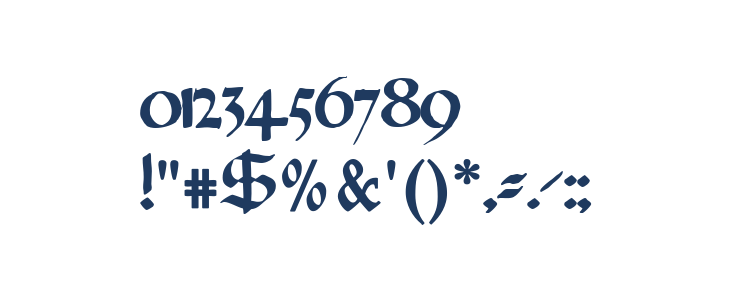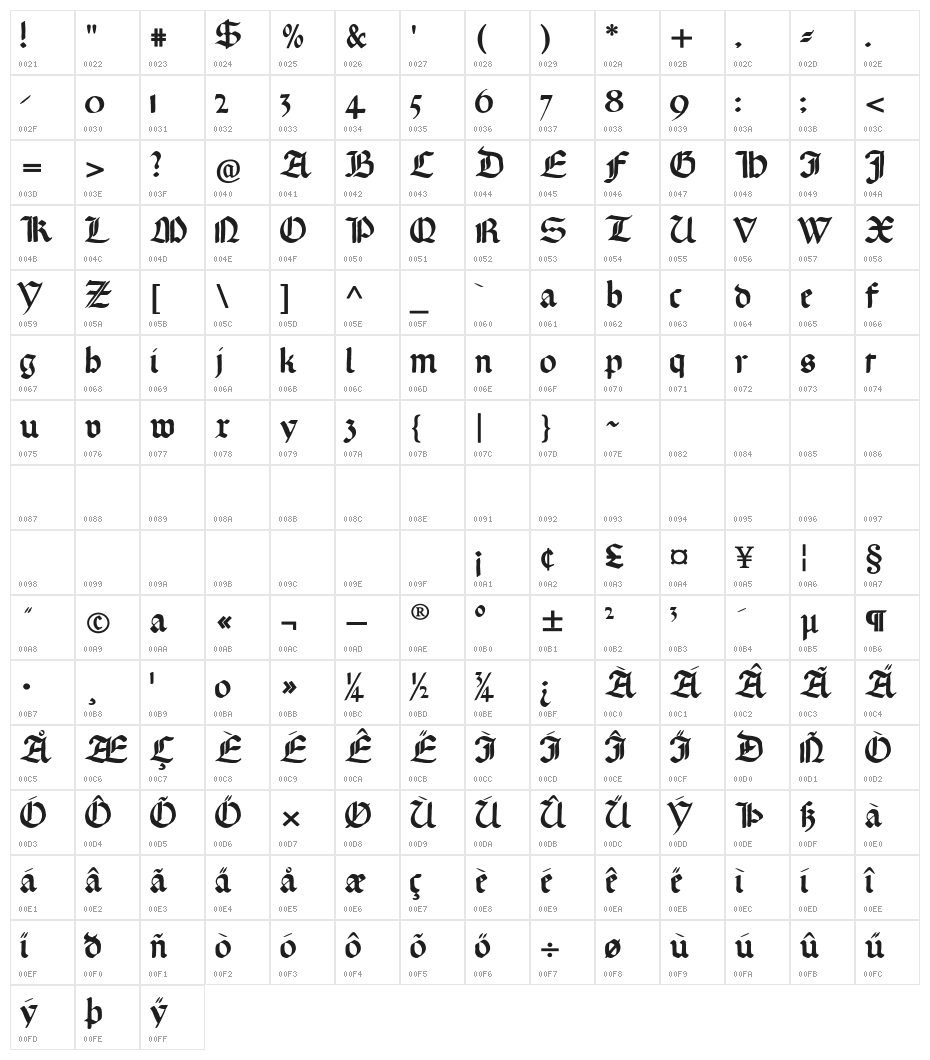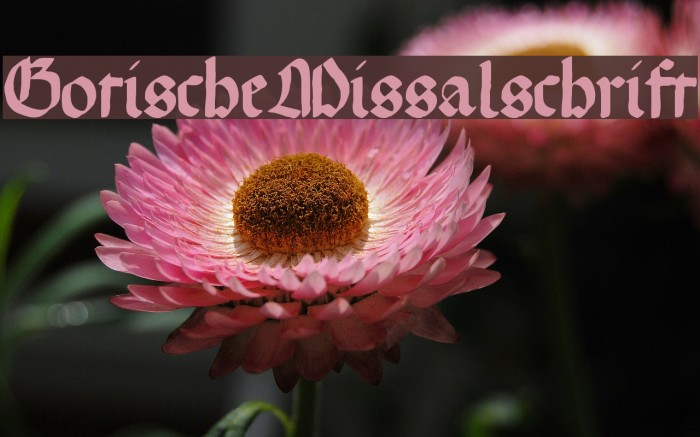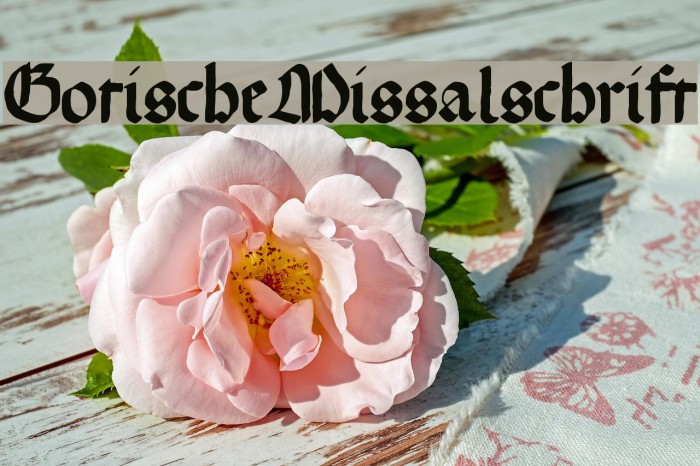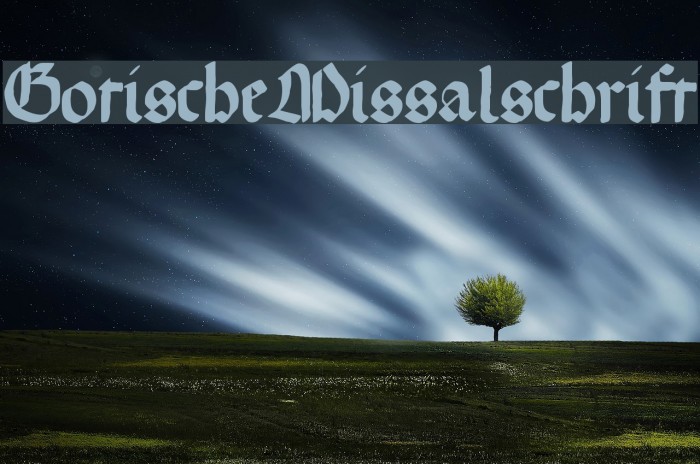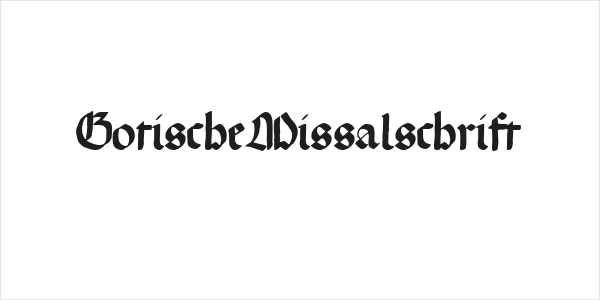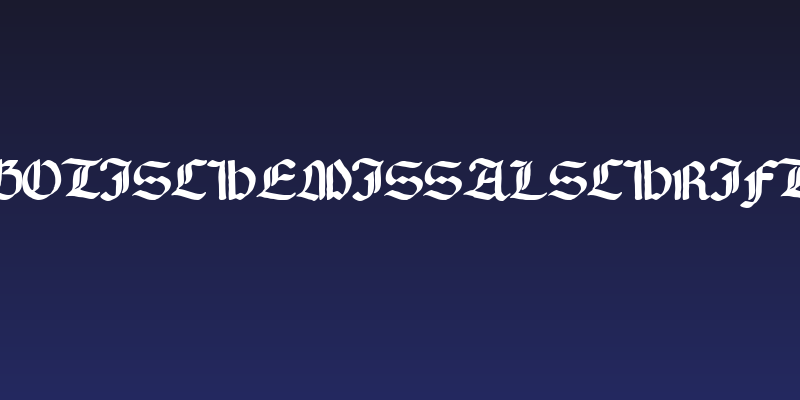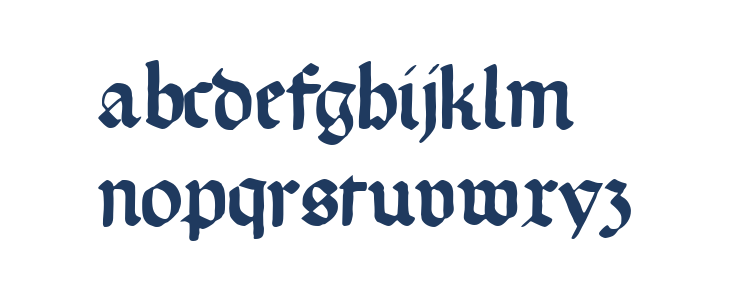
GotischeMissalschrift Font
GotischeMissalschrift Description
This font exhibits a traditional Gothic style, characterized by its intricate and ornate letterforms. The uppercase letters feature sharp, angular lines with pronounced serifs, creating a dramatic and historical appearance. The lowercase letters maintain the same Gothic essence, with a slightly more rounded approach, yet still retaining the sharpness typical of this style. The numerals are bold and consistent with the overall theme, offering a sense of uniformity and balance. Special characters are designed with the same attention to detail, ensuring they blend seamlessly with the rest of the typeface. This font is ideal for projects requiring a medieval or historical aesthetic, providing a sense of authenticity and depth.
| Use Case | Headlines, Logos, Decorative text |
| Proposed Projects | Ideal for historical documents, medieval-themed designs, book covers, and decorative signage. |